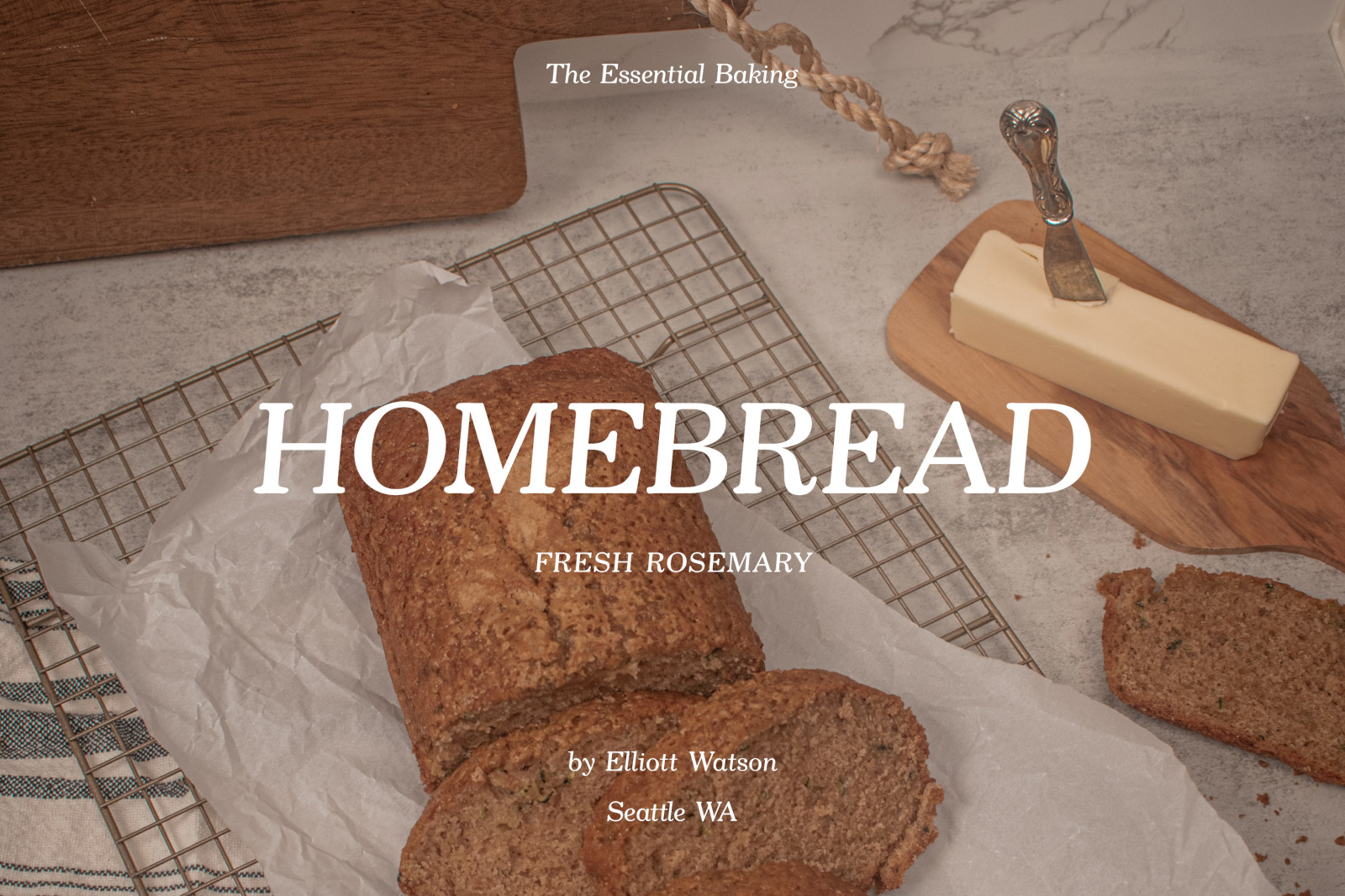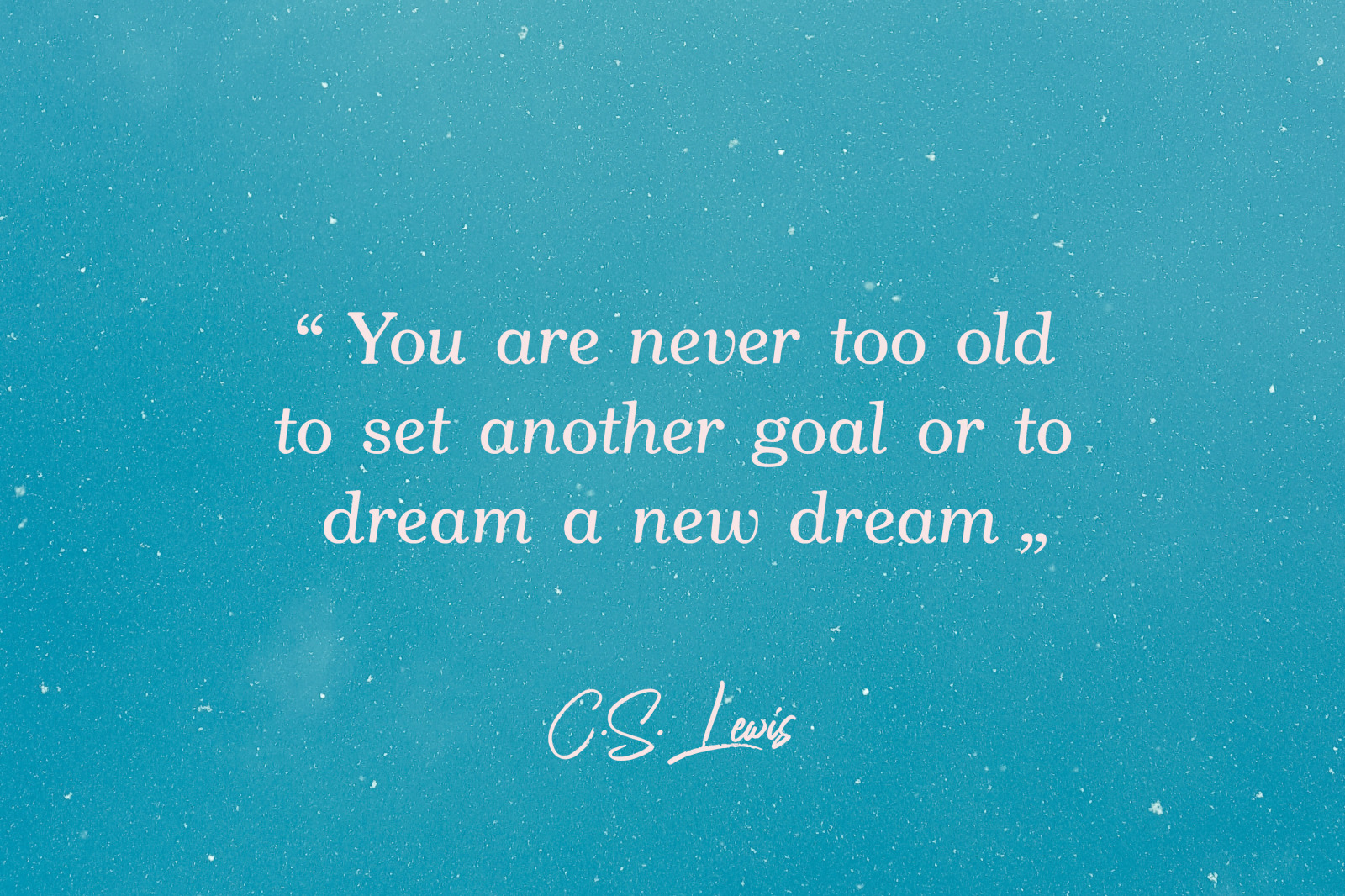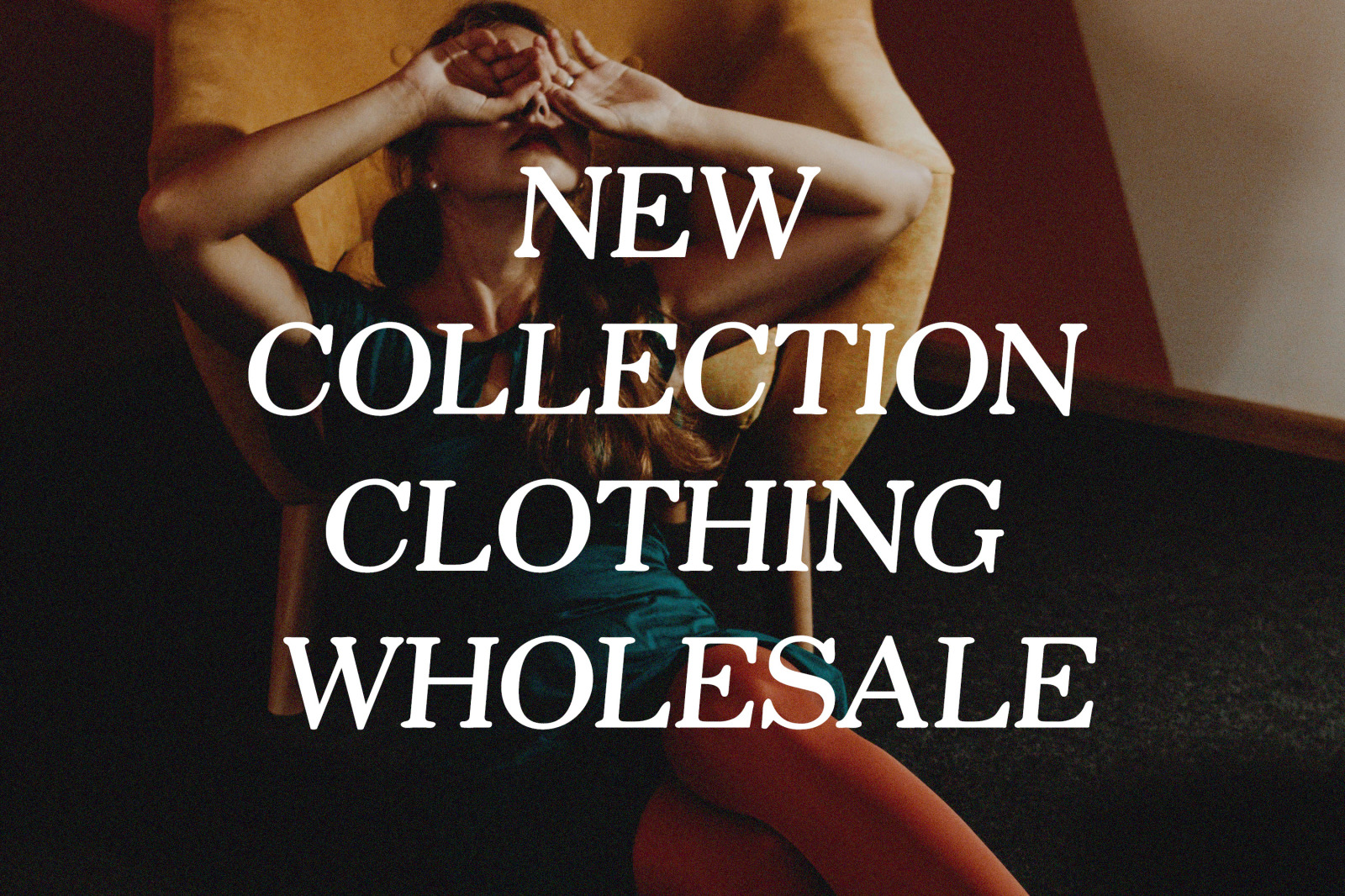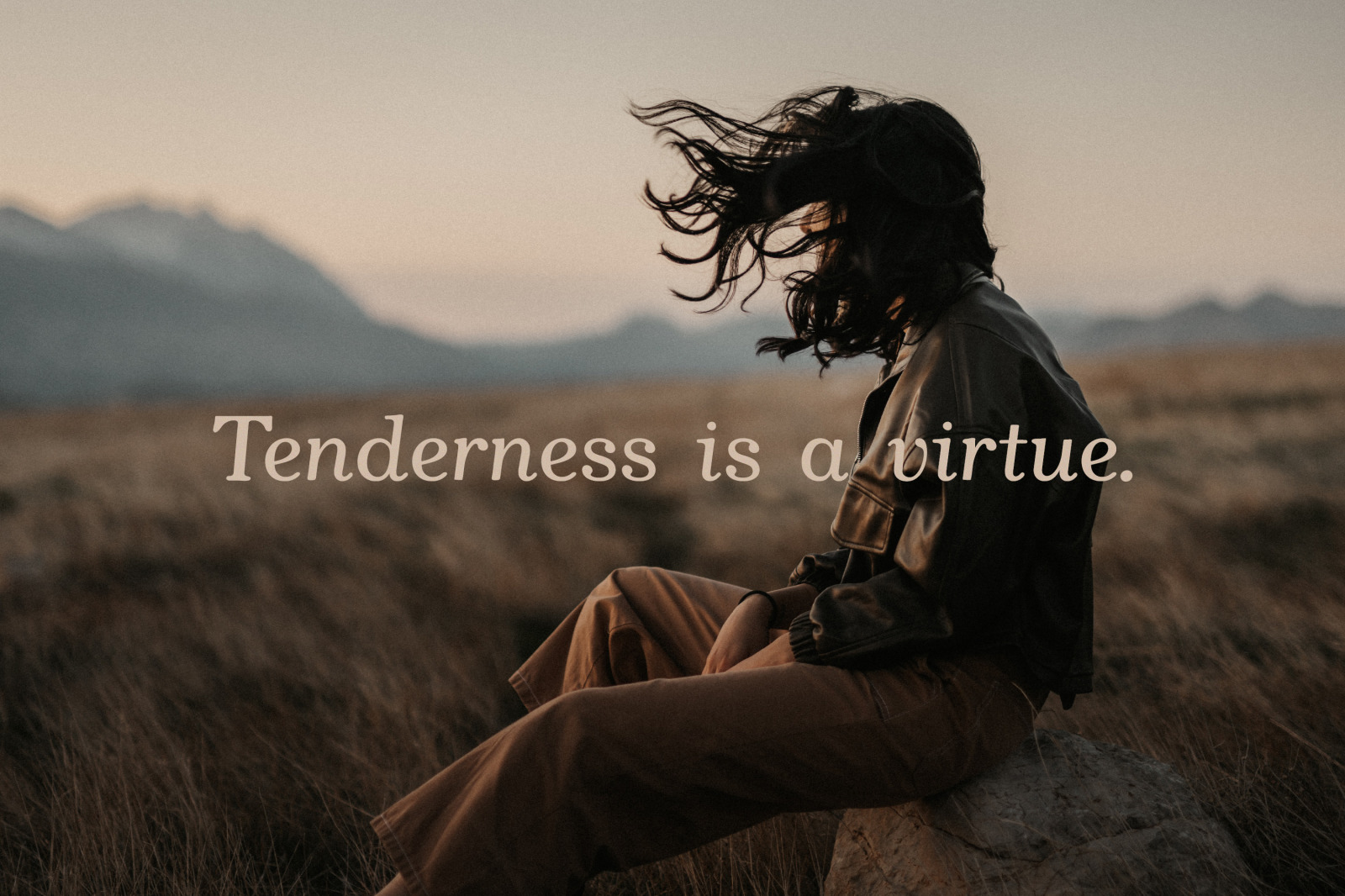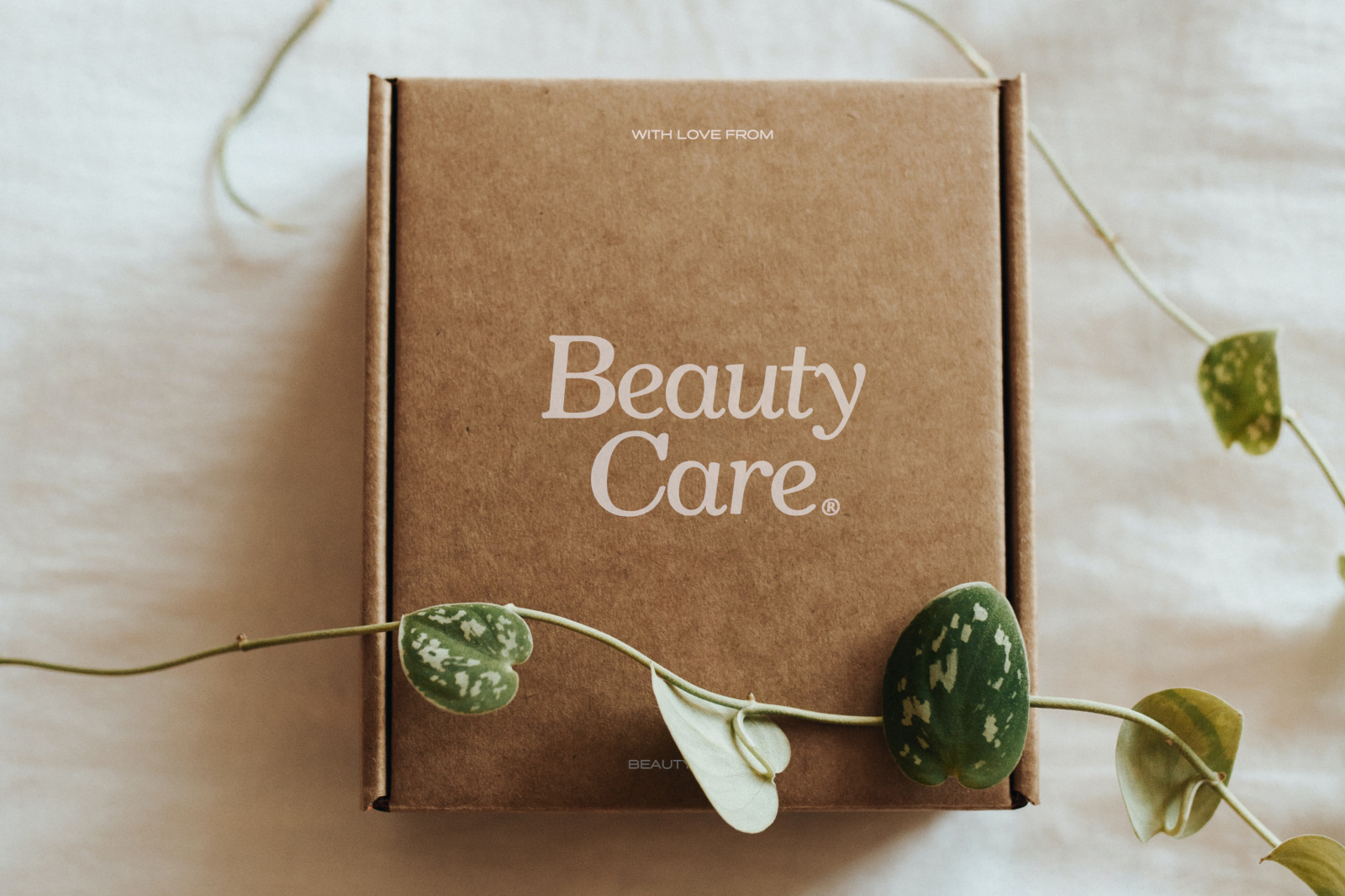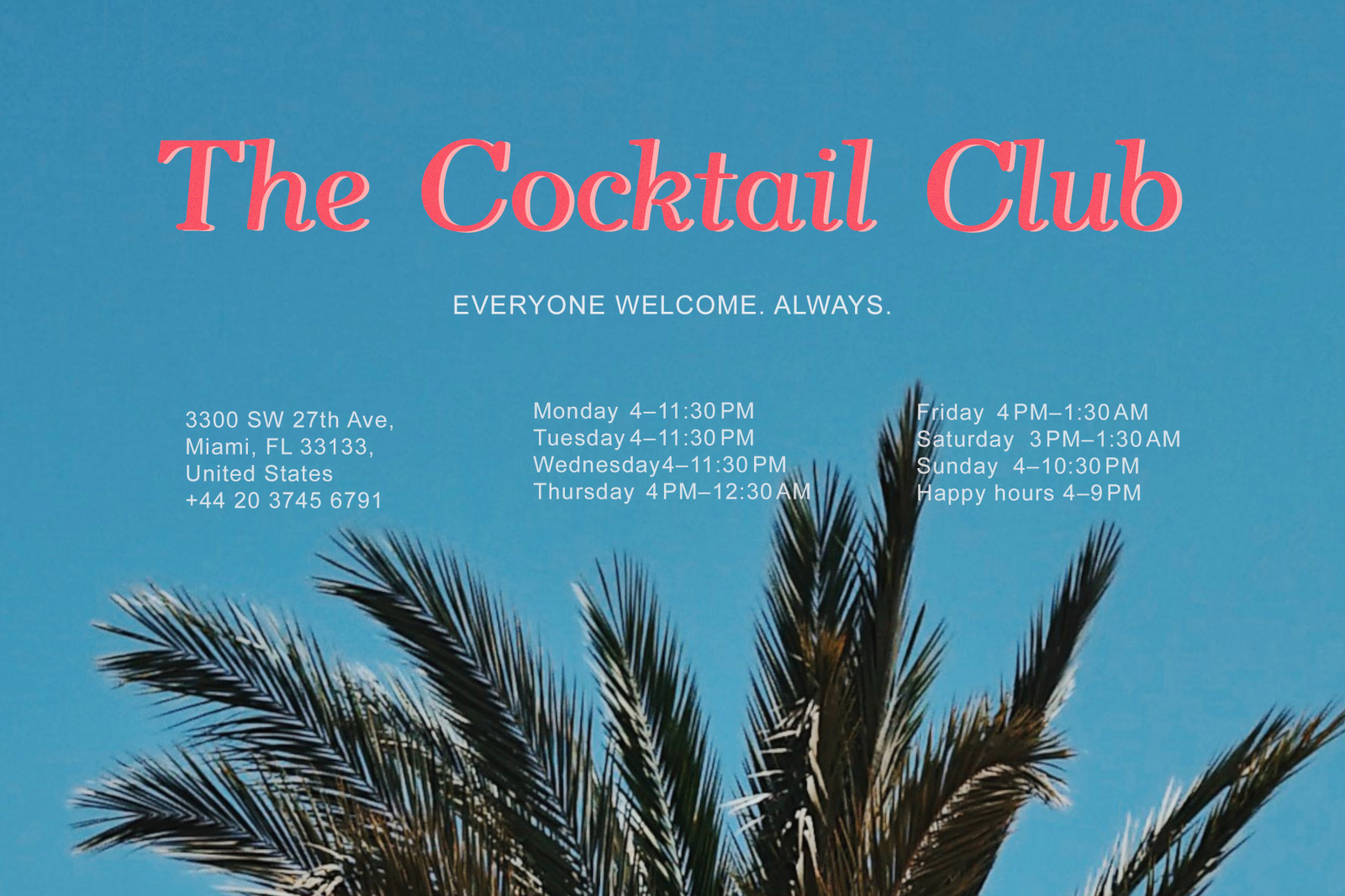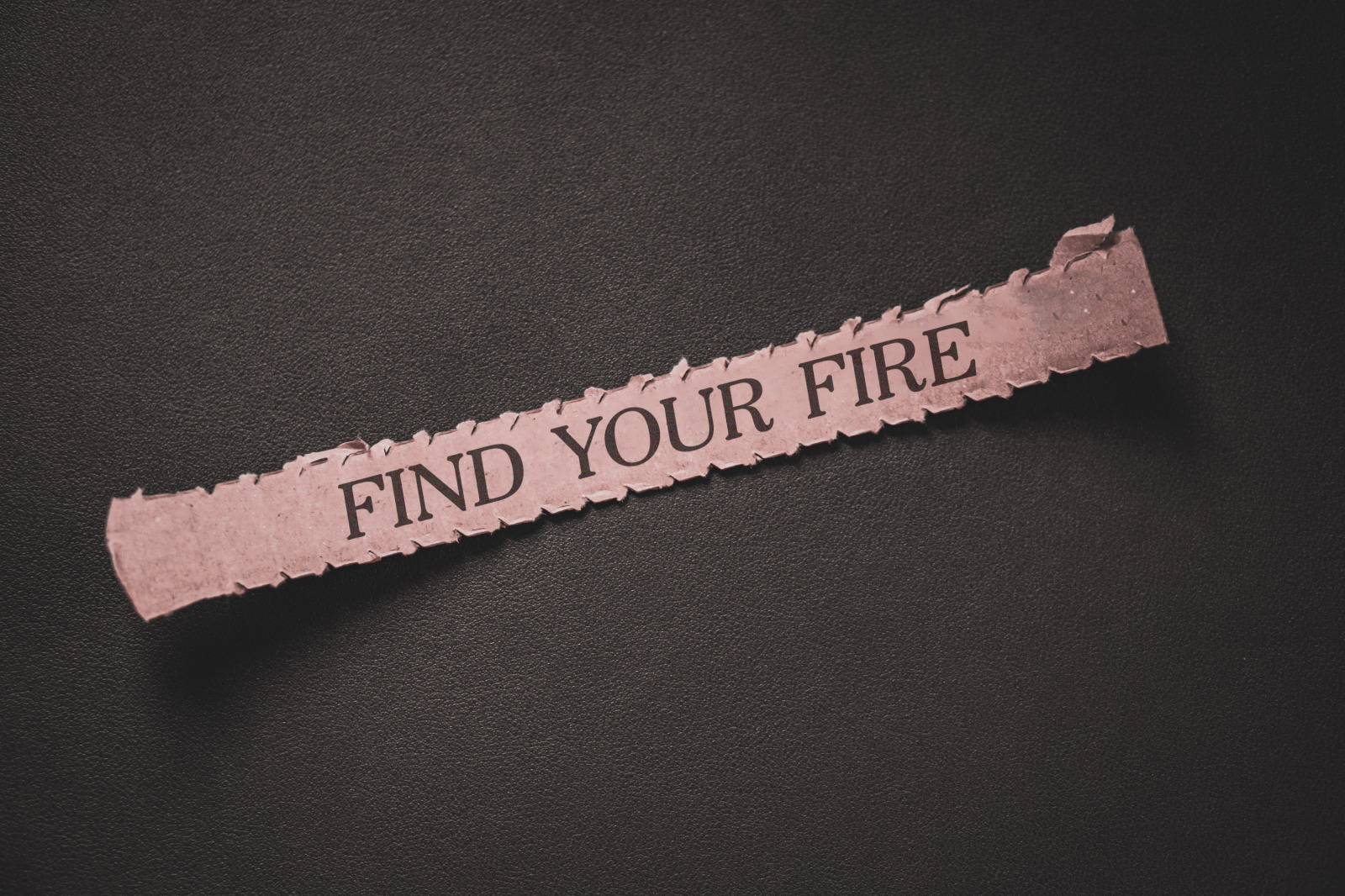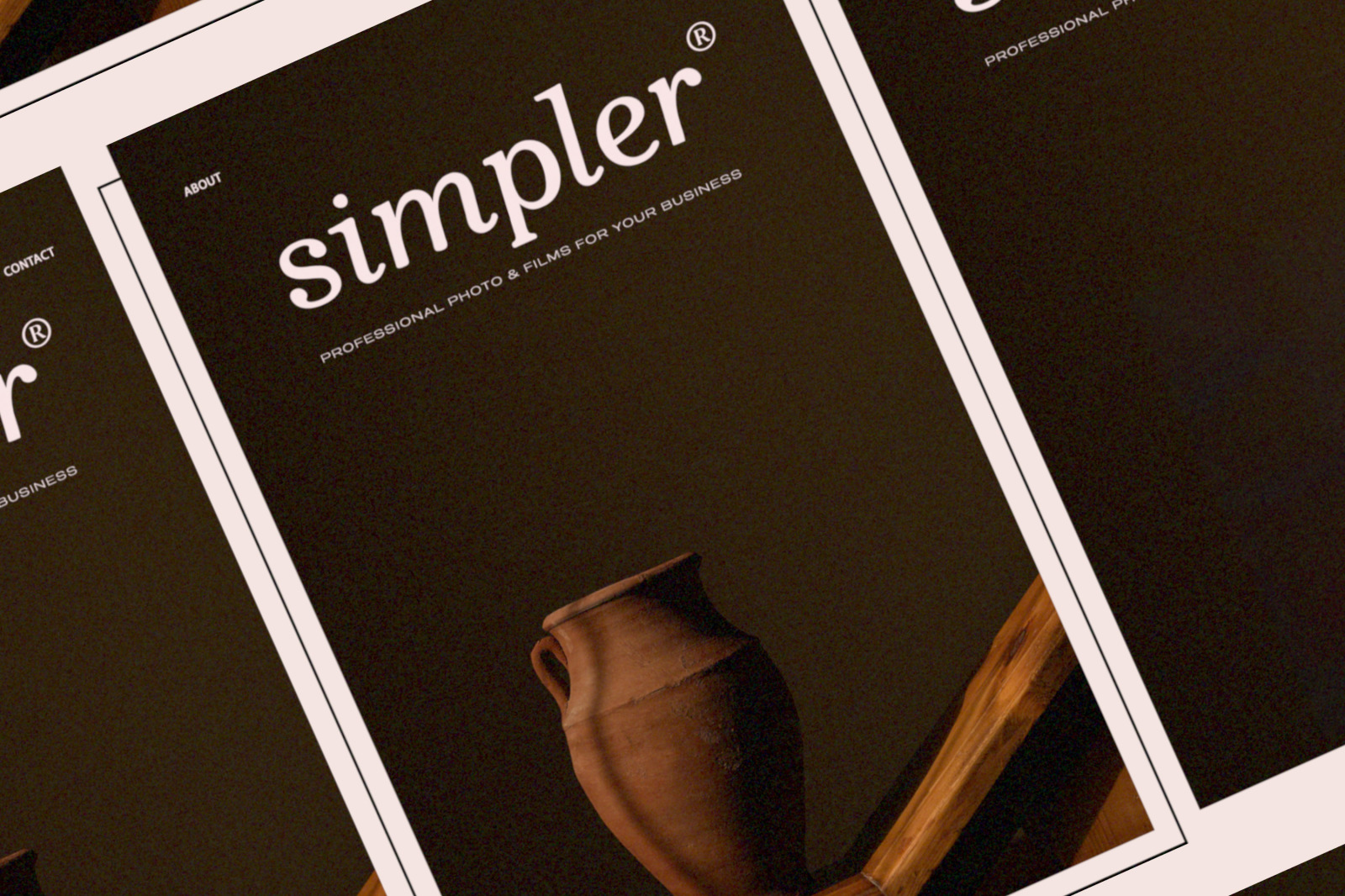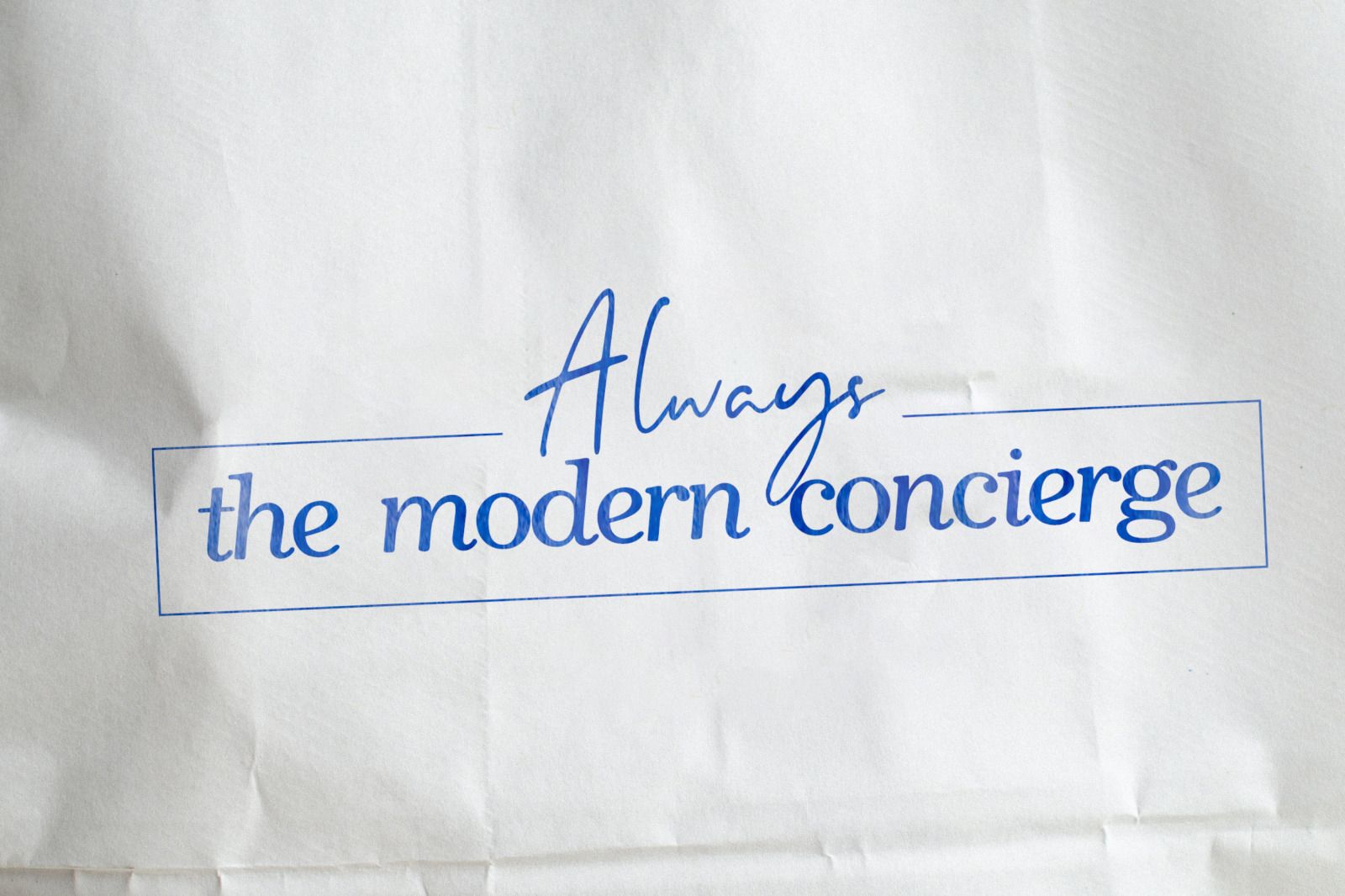
Fairytale Font
Fairytale is an inspiring and friendly font that features smooth rounded letters and soft curves, giving it a warm and inviting appearance.